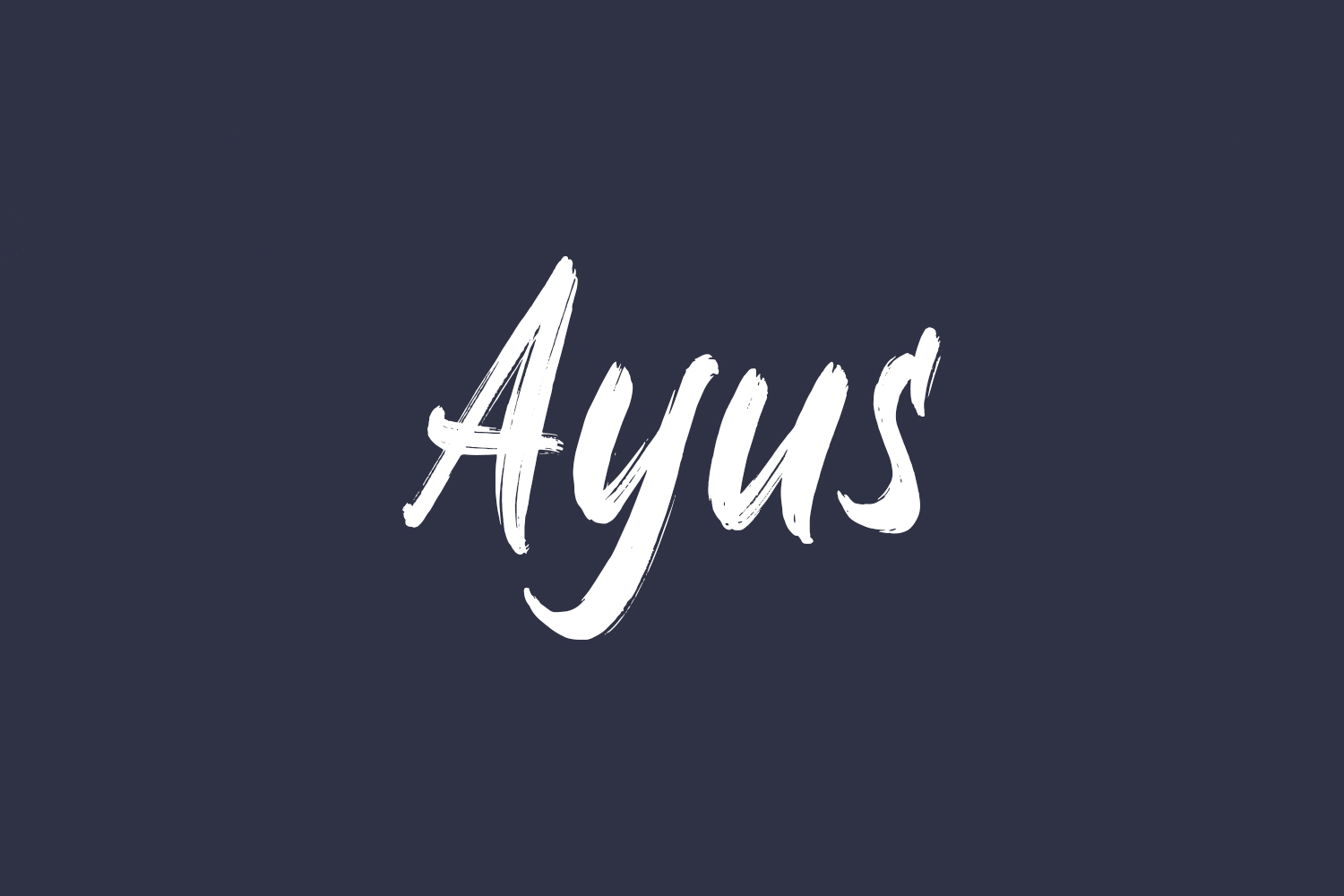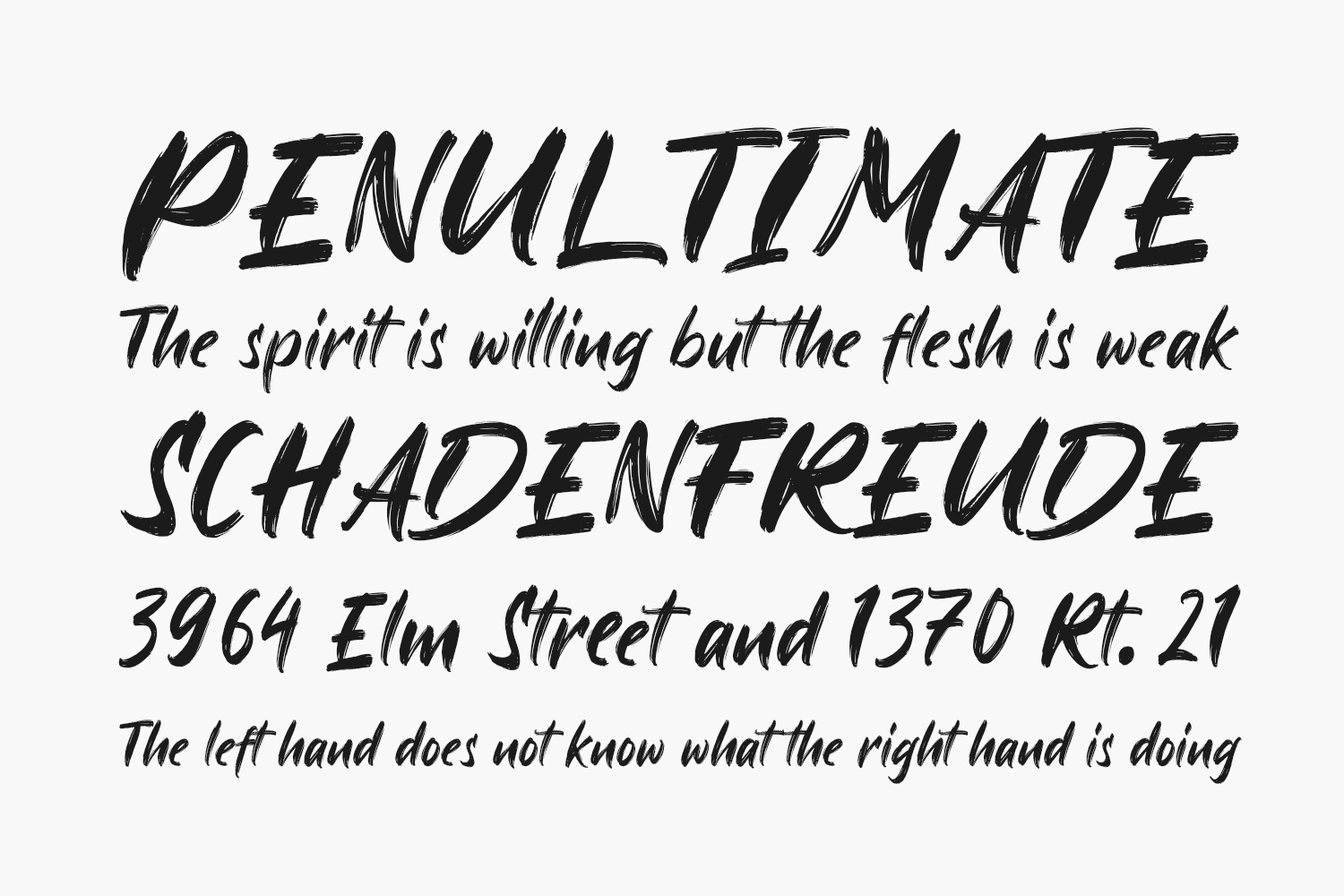
Ayus Free Font is a lovely flowing and brushed handwritten font. Thick lettered and cool, this font will instantly make your designs look gorgeous. Ayus Free Font was designed by StringLabs and is free for personal use only. Please purchase the full version for commercial use.